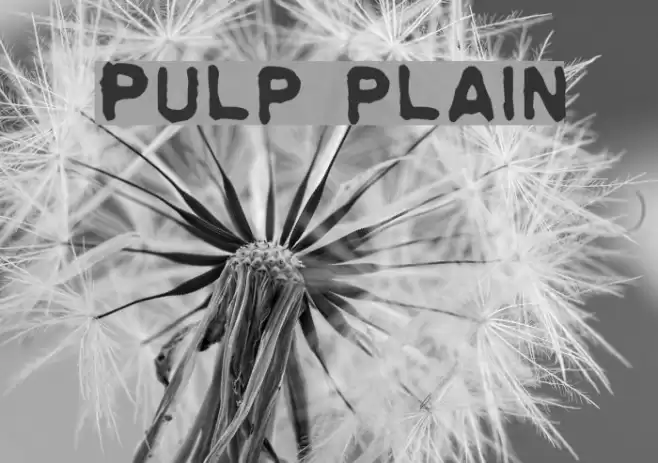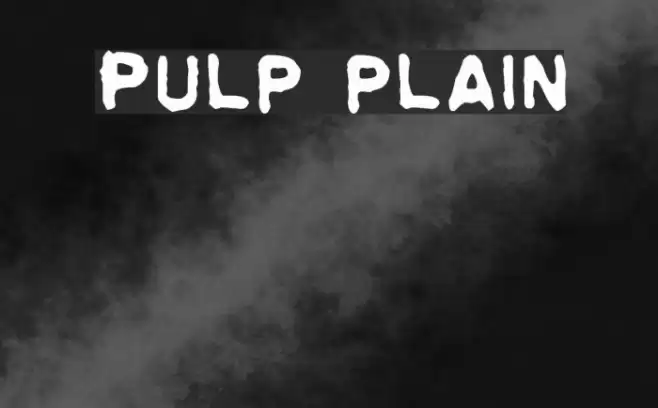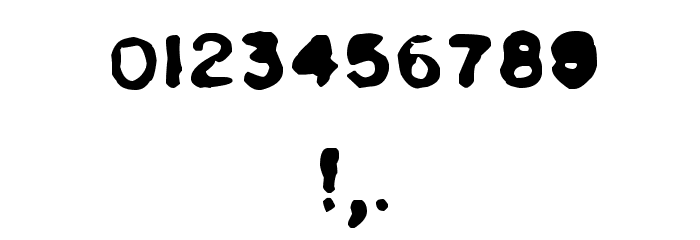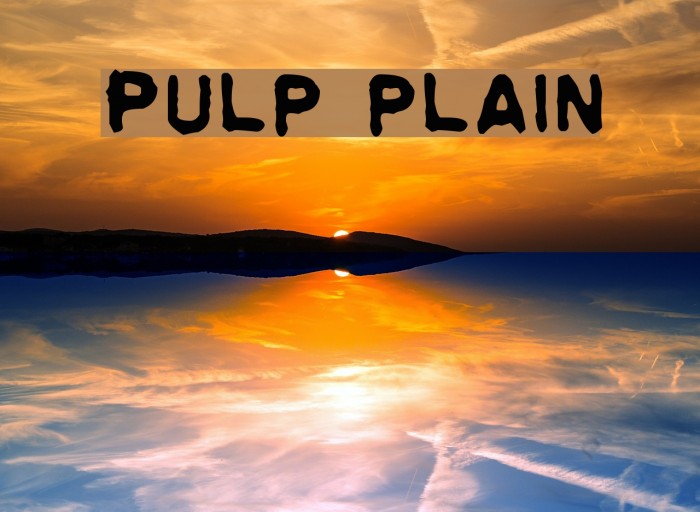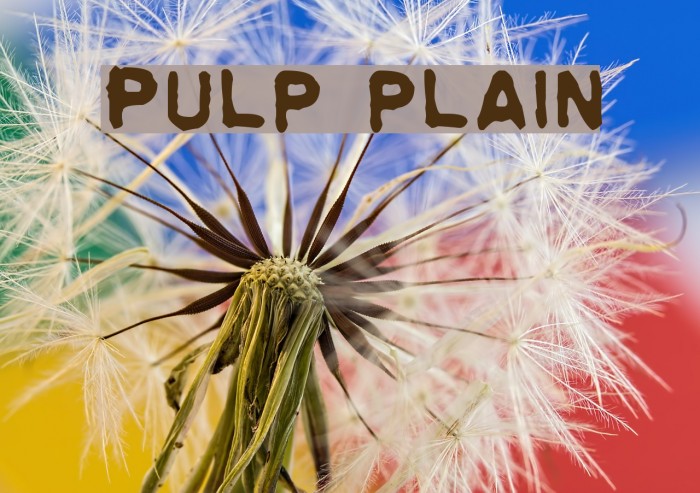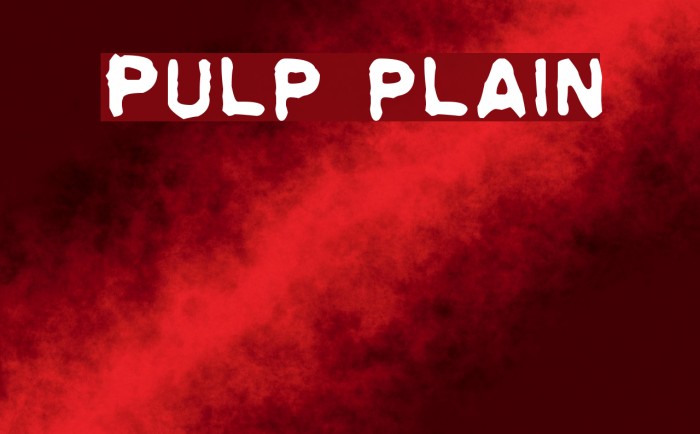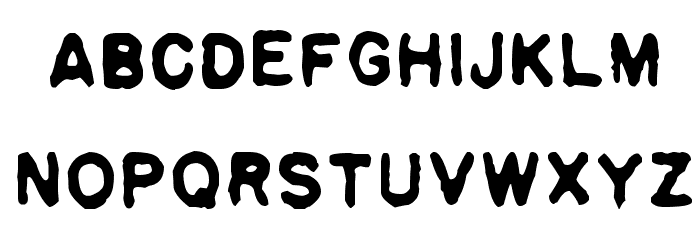
Pulp plain Font
Pulp plain Description
This font features a bold, playful style with a slightly irregular and organic appearance. The characters have a hand-drawn quality, giving them a unique and artistic feel. The strokes are thick and rounded, creating a sense of warmth and friendliness. The uppercase and lowercase letters maintain a consistent weight, while the numbers and special characters blend seamlessly with the overall design. The font's quirky and informal nature makes it suitable for creative projects that require a touch of personality and charm.
A bold, playful font with an organic, hand-drawn appearance from Uncategorized fonts.
- Proposed Projects: Ideal for children's books, creative posters, playful branding, and artistic invitations.
- Overall Style: Playful, Artistic